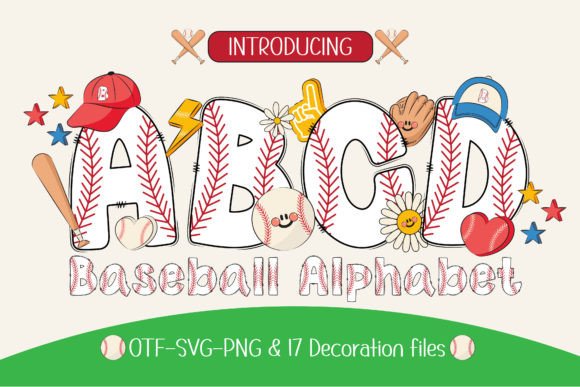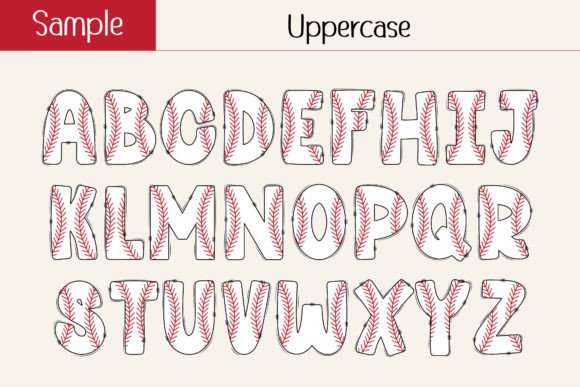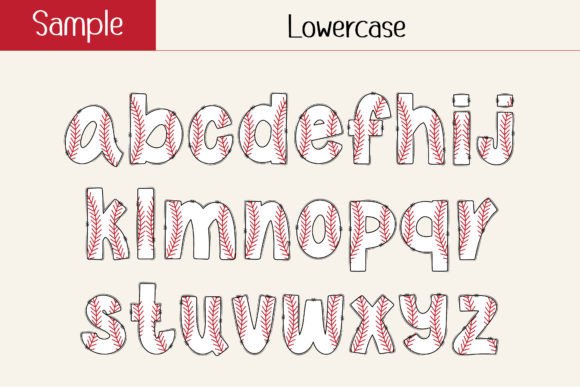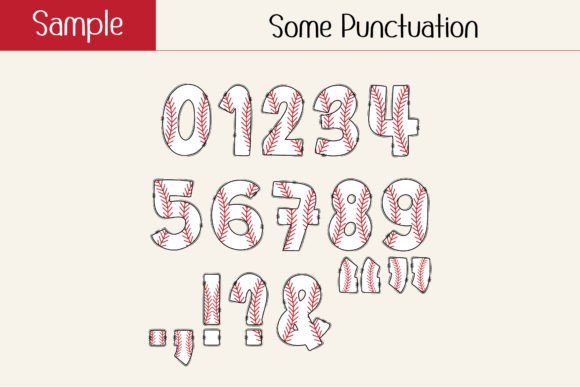
Baseball Alphabet Font
Introducing “Baseball Alphabet,” a font inspired by the dynamic world of baseball. With its sporty aesthetic and special bonus of 17 decoration files, this font enables you to express your creativity in various projects. Whether you’re working on custom DIY craft projects, creating personalized names, designing sublimations, crafting posters, or engaging in other creative endeavors, “Baseball Alphabet” is the perfect choice.